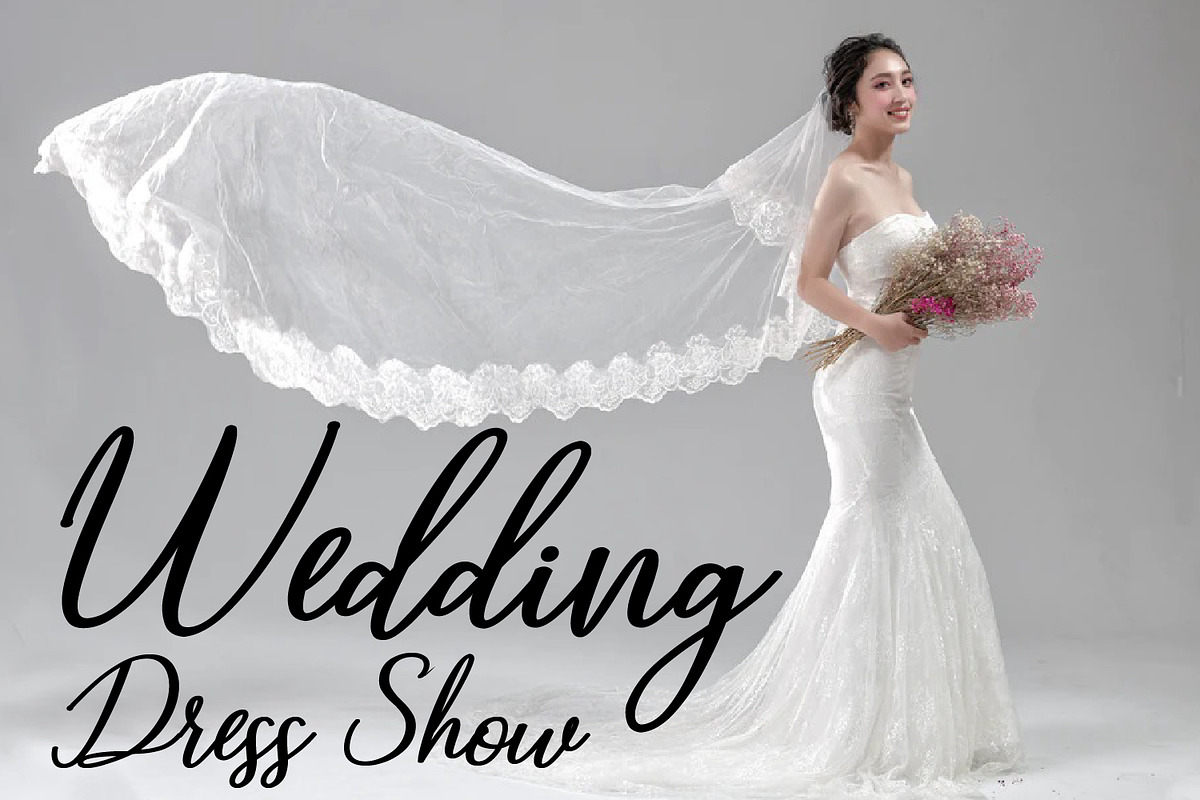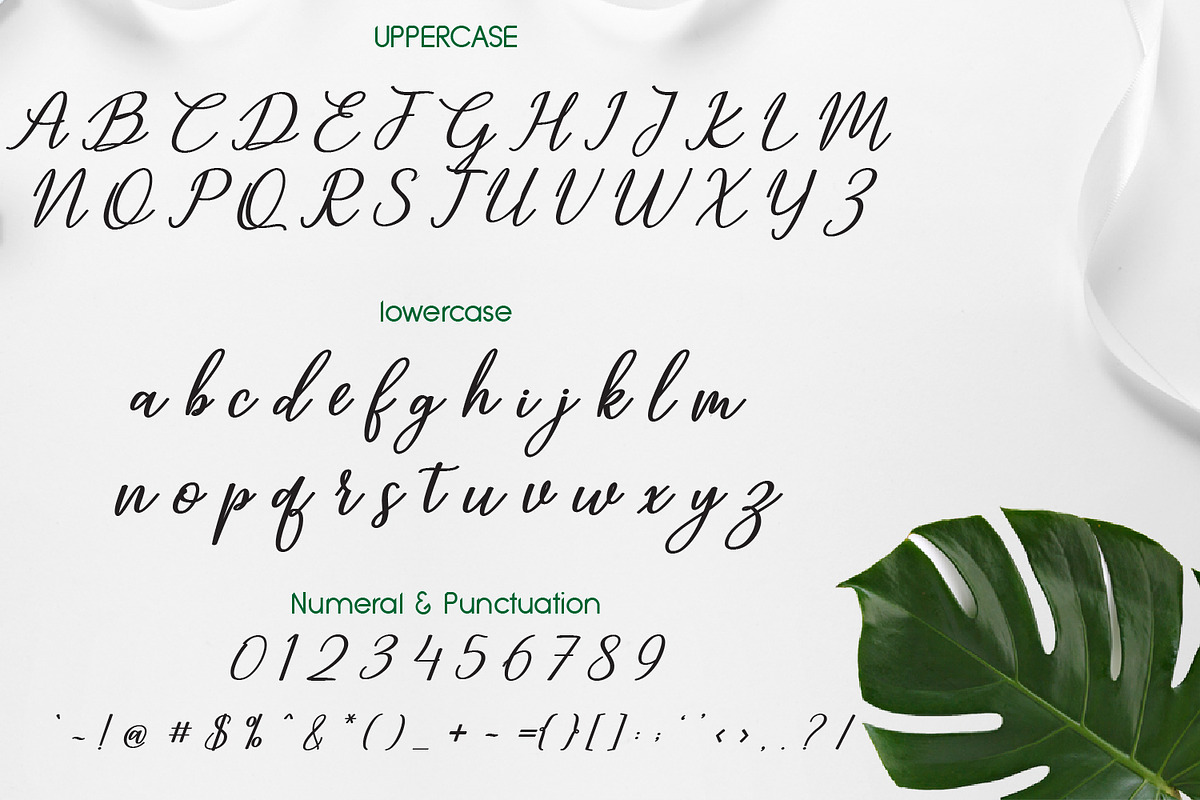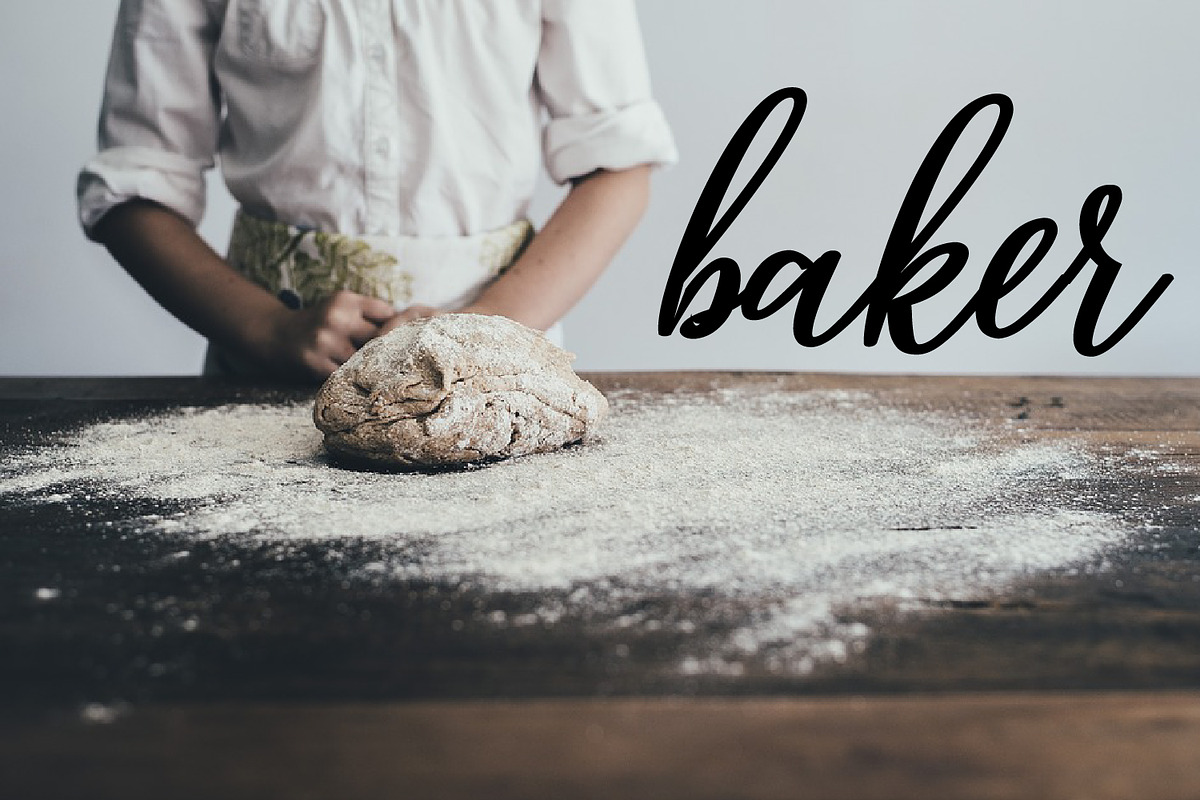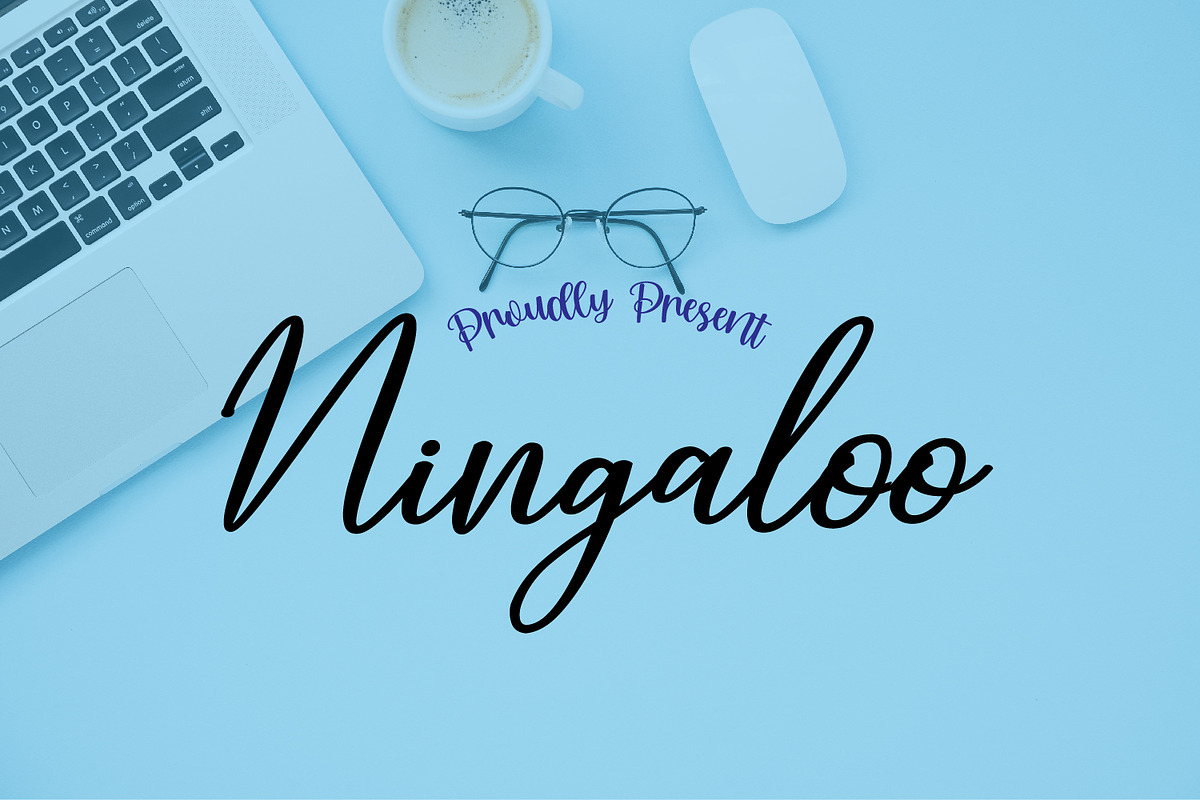
Ningaloo
Ningaloo is a stylish and incredibly elegant handwritten font. It looks stunning on wedding invitations, thank you cards, quotes, greeting cards, logos, business cards and every other design which needs a handwritten touch.